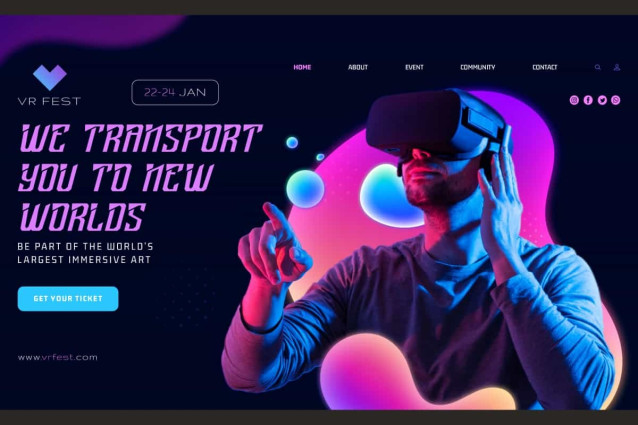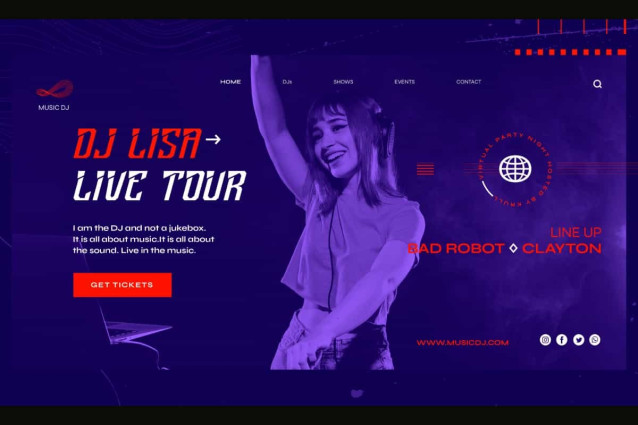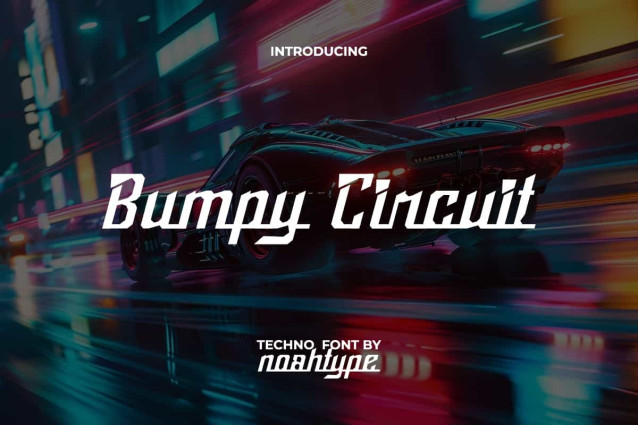
Bumpy Circuit Font
Bumpy Circuit Font is a unique style font with a touch of techno theme by NoahType. The style of this font is inspired by the lines in computer circuits, giving it a unique appearance. It will be good for any designs, such as brand image, label, custom design, invitation, marketing material, menu, poster, product packaging, quotes, signage, stationery, web, and many more!
Bumpy Circuit Font includes a complete set of Uppercase and Lowercase Basic Characters with different looks for both, Numerals, Punctuation and Symbol. The characters of this font will give amazing look and also a perfect choice for many industries, such as fashion, accessories, advertising, event or festival, game, movie, photography, printing, publishing, sports, etc.